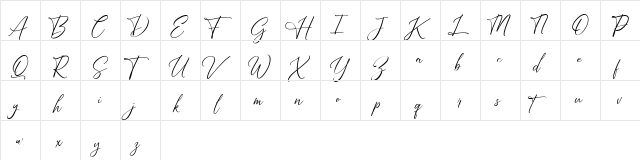
Bright Daily FREE Regular
Design Context for Bright Daily FREE Typeface
Bright Daily FREE is a composed and adaptable typeface that performs quietly and consistently across a wide range of design contexts.